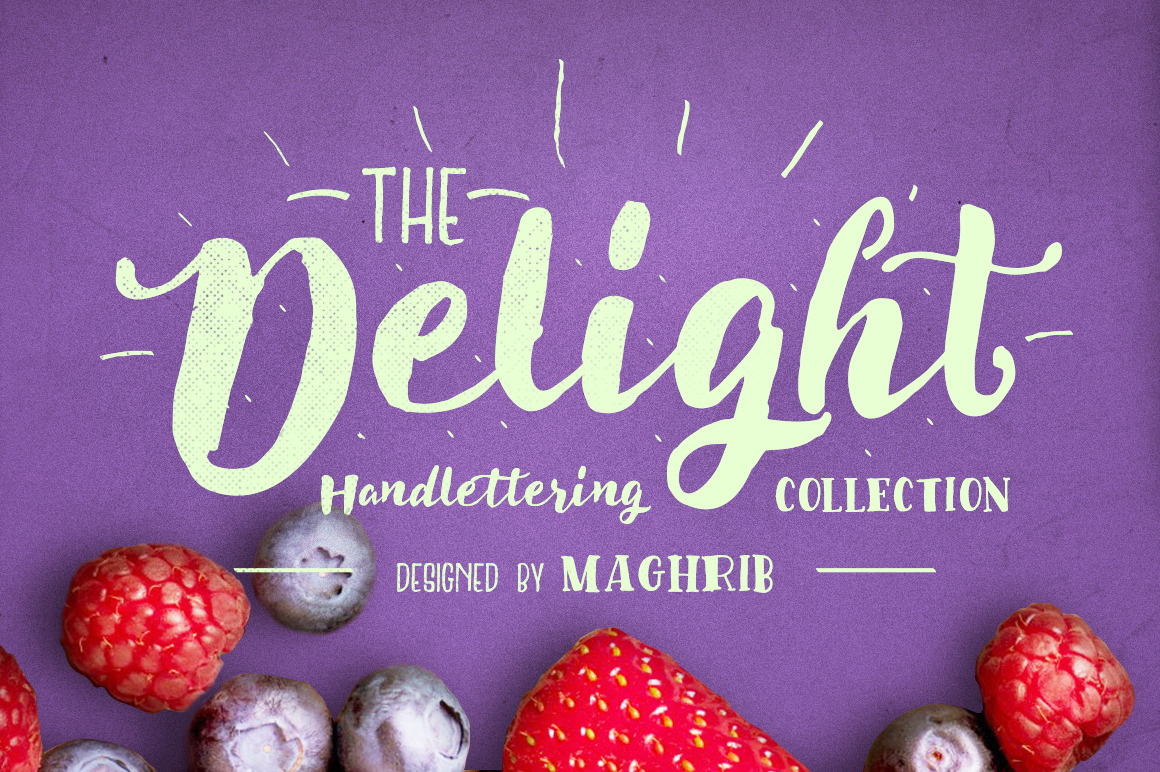
Delight Font Pack & Extra
Delight type family is a lovely handlettering, It contains three different hand drawn With this set and a little bit of love and care it is possible to create beautiful “handmade” graphics.
Delight type is optimized to feel not just like a font but like true handlettering.
Delight type is very best choice fonts for : Wedding Invitation, quotes, Posters, Logos, Print Ads, Digital Ads, Promotion Product etc